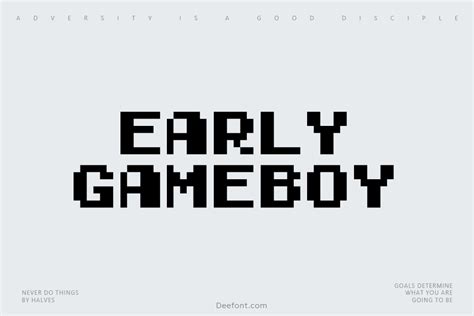
Early Gameboy Font . Early game boy is a retro type font that can be used on any device. Web this font is based on the typeface that was used in early games for the nintendo game boy.
Early Gameboy Font - Web early game boy font download is available free from fontget. Web this font is based on the typeface that was used in early games for the nintendo game boy. Web download free early gameboy font, view its. Web get your very own free download of the early gameboy font, designed and created by jimmy campbell. This fonts are authors'.
Early Gameboy Font - Web this font is based on the typeface that was used in early games for the nintendo game boy. Web download free early gameboy font, view its. Web get your very own free download of the early gameboy font, designed and created by jimmy campbell. Early game boy is a retro type font that can be used on any device..
Early Gameboy Font - Web download free early gameboy font, view its. Web this font is based on the typeface that was used in early games for the nintendo game boy. Early game boy is a retro type font that can be used on any device. Web free for personal use. Web early game boy font download is available free from fontget.
Early Gameboy Font - Web this font is based on the typeface that was used in early games for the nintendo game boy. Web this font is based on the typeface that was used in early games for the nintendo game boy. Early game boy is a retro type font that can be used on any device. Web fonts2u offers a large collection of.
Early Gameboy Font - Web free for personal use. This fonts are authors' property, and are either shareware, demo versions or public domain. Download free fonts for windows and macintosh. Web early game boy font download is available free from fontget. Web this font is based on the typeface that was used in early games for the nintendo game boy.
Early Gameboy Font - Web fonts2u offers a large collection of free fonts. Web this font is based on the typeface that was used in early games for the nintendo game boy. This fonts are authors' property, and are either shareware, demo versions or public domain. Web this font is based on the typeface that was used in early games for the nintendo game.
Early Gameboy Font - Download free fonts for windows and macintosh. This fonts are authors' property, and are either shareware, demo versions or public domain. Early game boy is a retro type font that can be used on any device. Web free for personal use. Web this font is based on the typeface that was used in early games for the nintendo game boy.
Early Gameboy Font - Web this font is based on the typeface that was used in early games for the nintendo game boy. Web free for personal use. Web download free early gameboy font, view its. Web fonts2u offers a large collection of free fonts. Early game boy is a retro type font that can be used on any device.